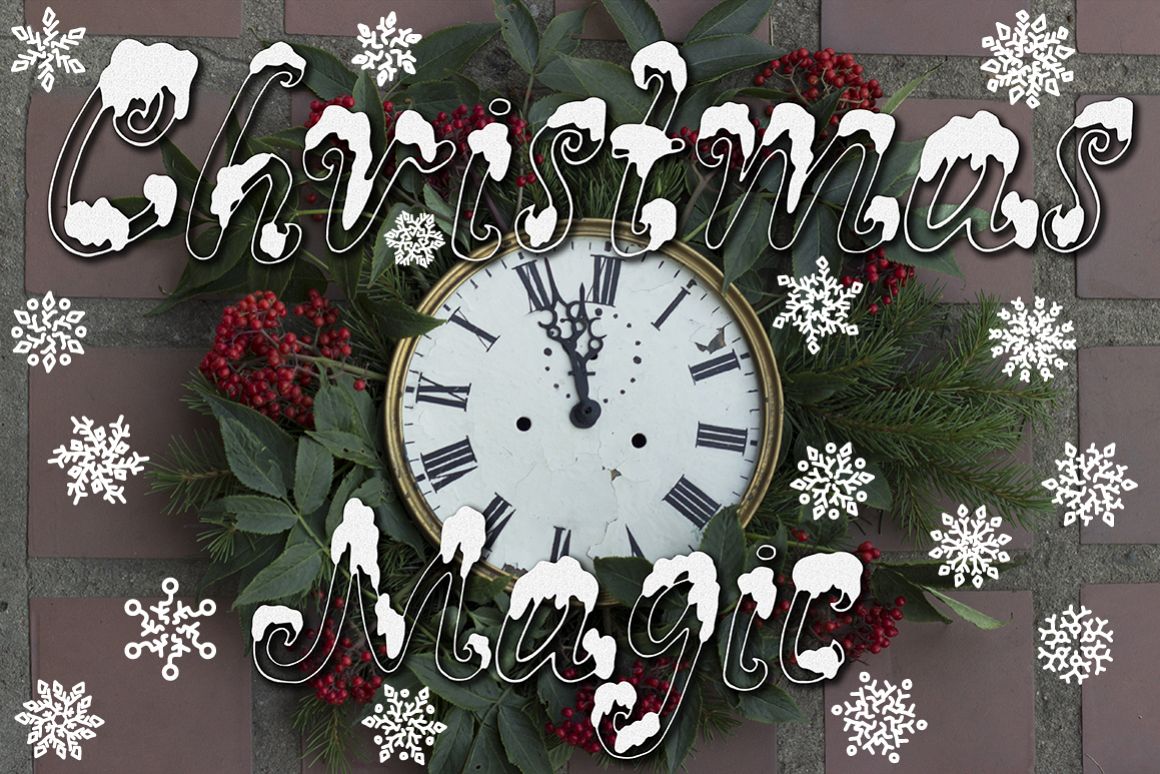
Snowy X-mas font
Snow-covered Christmas font. Perfect for holiday cards.This set includes:
• Snow-covered font
• Christmas lettering (preview 4)
• Christmas card with Santa (preview 3)